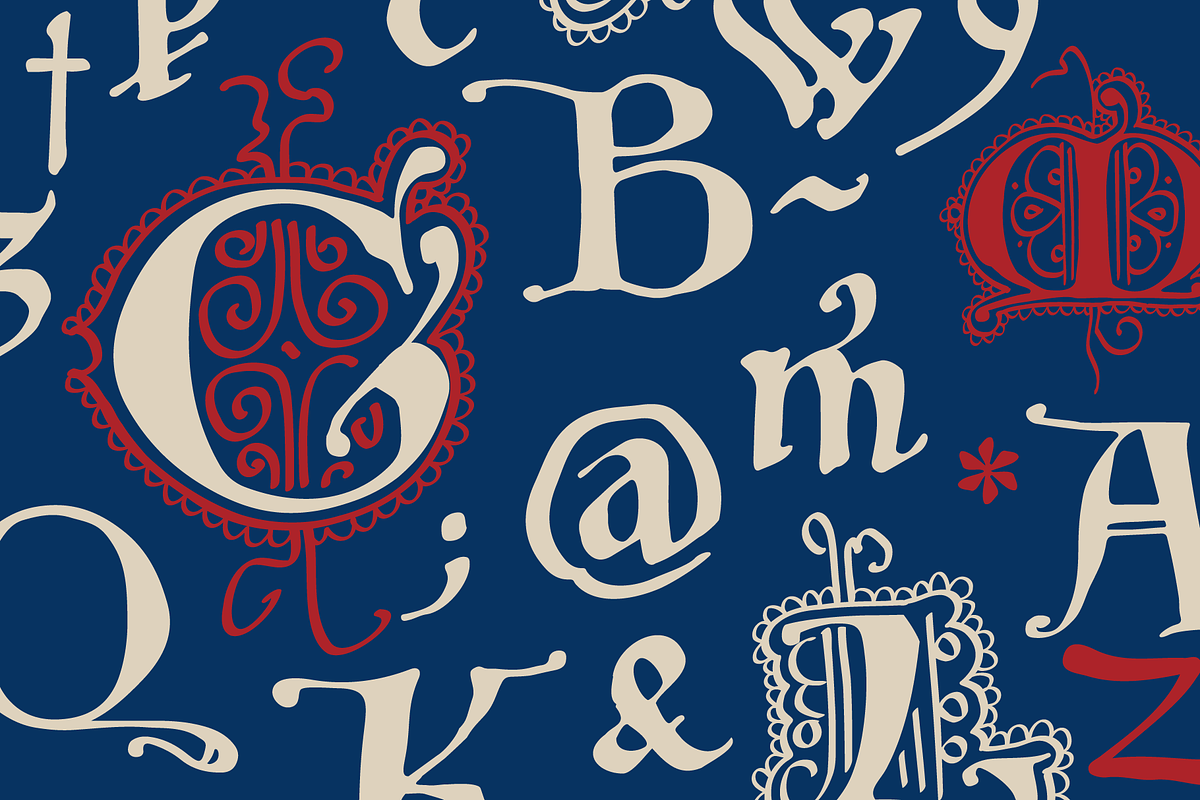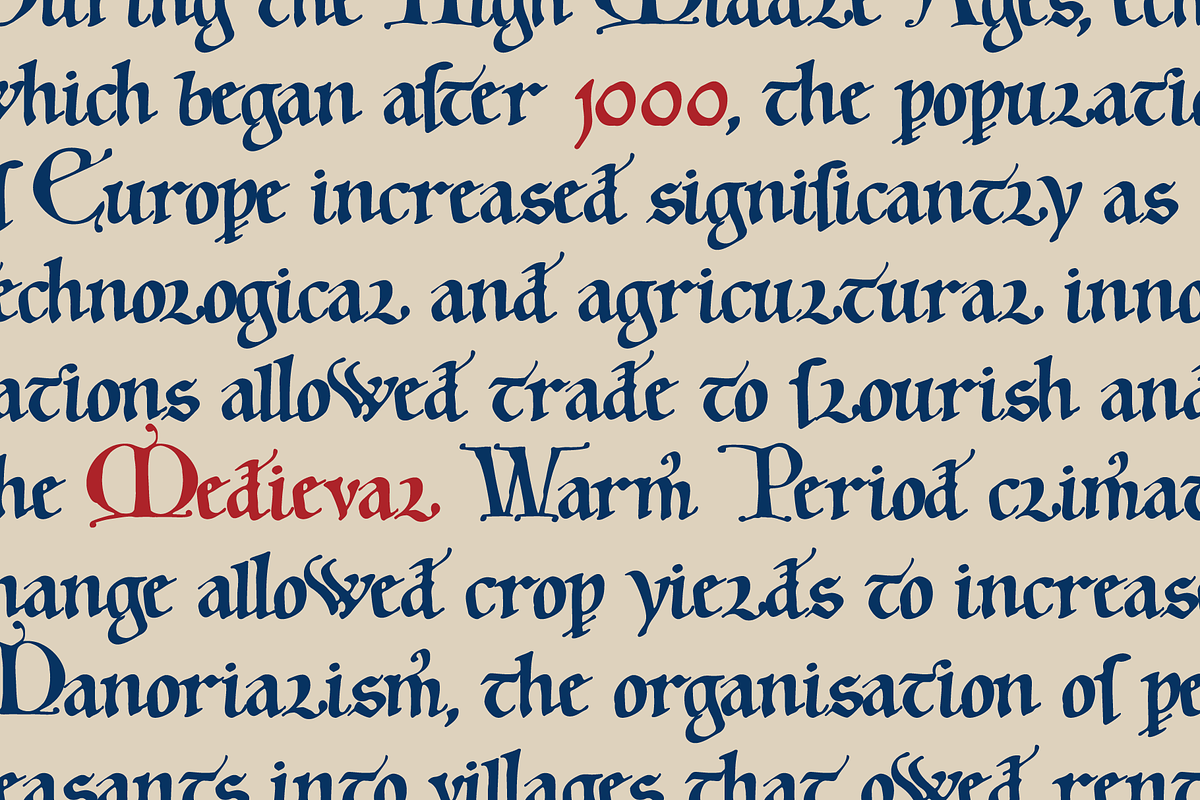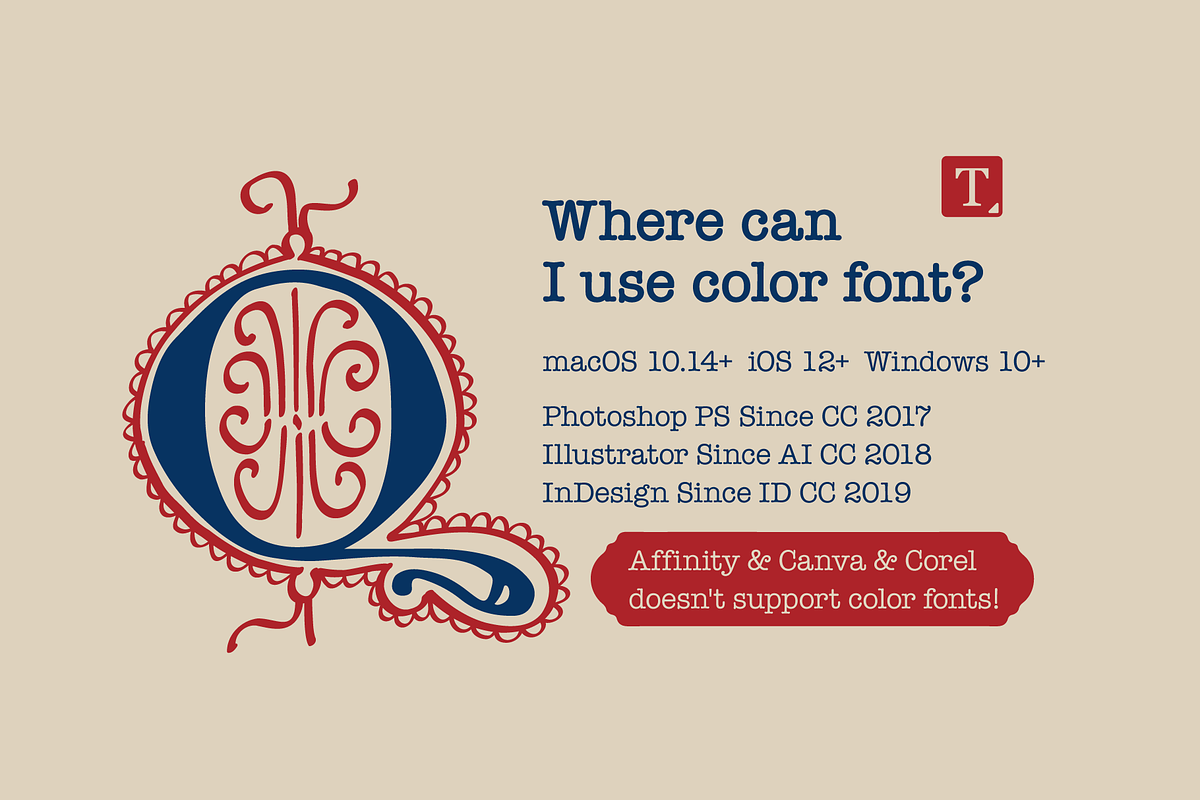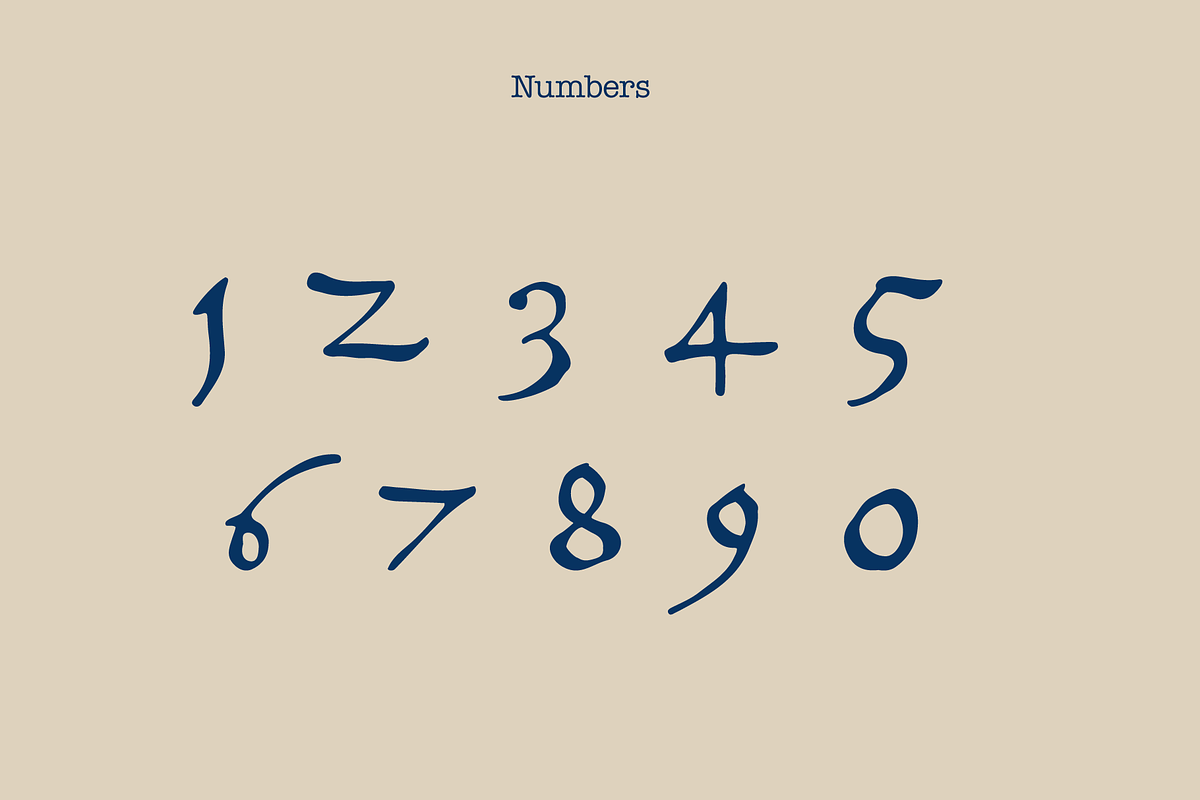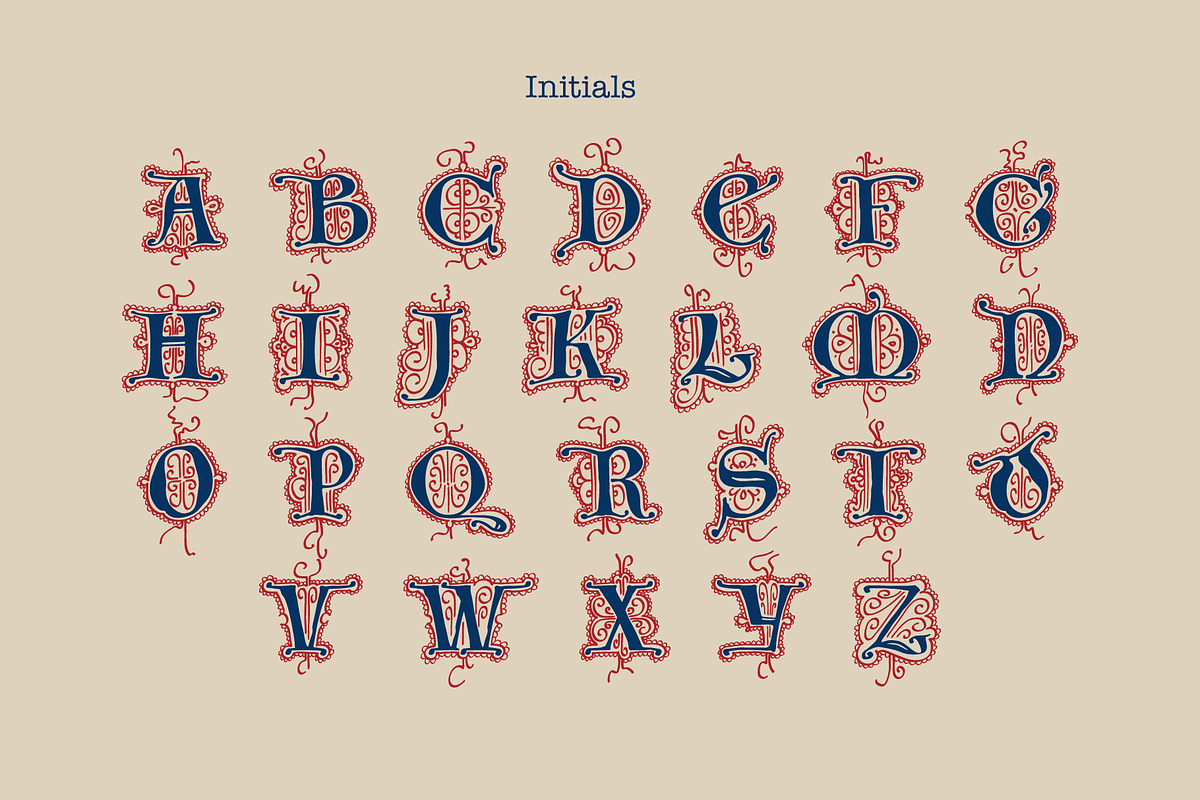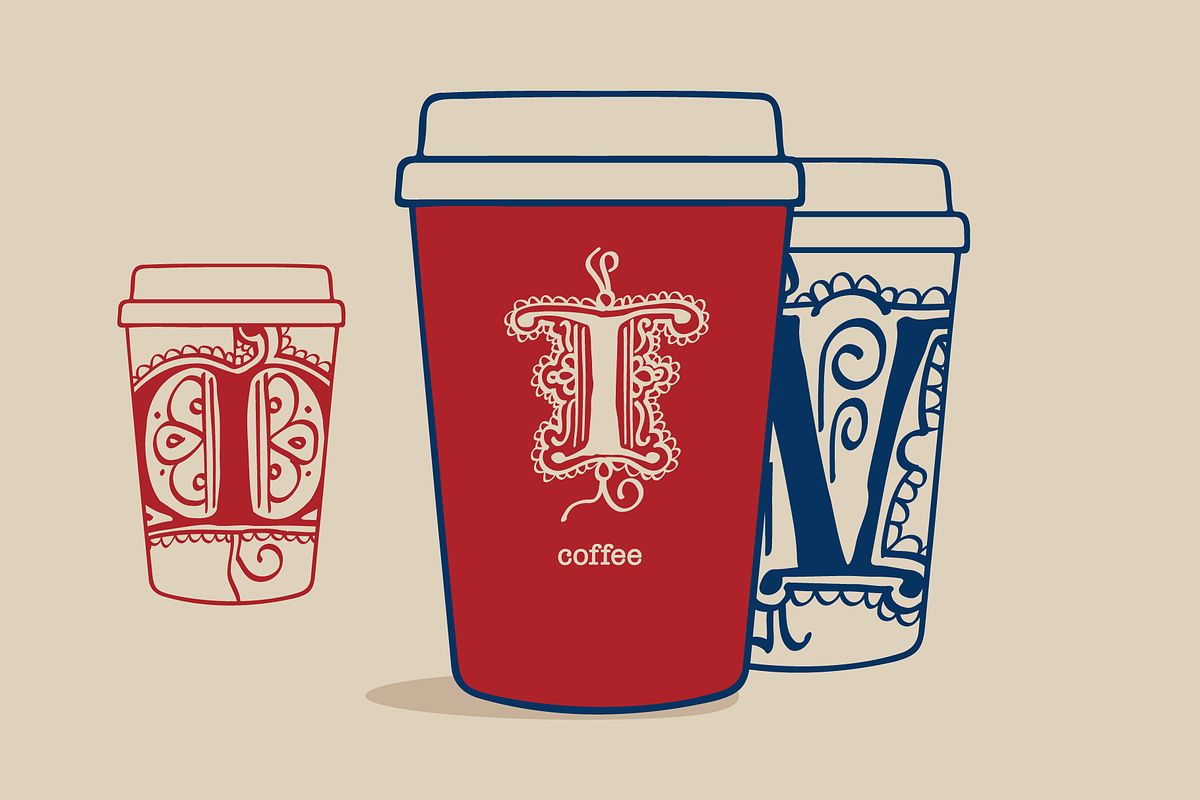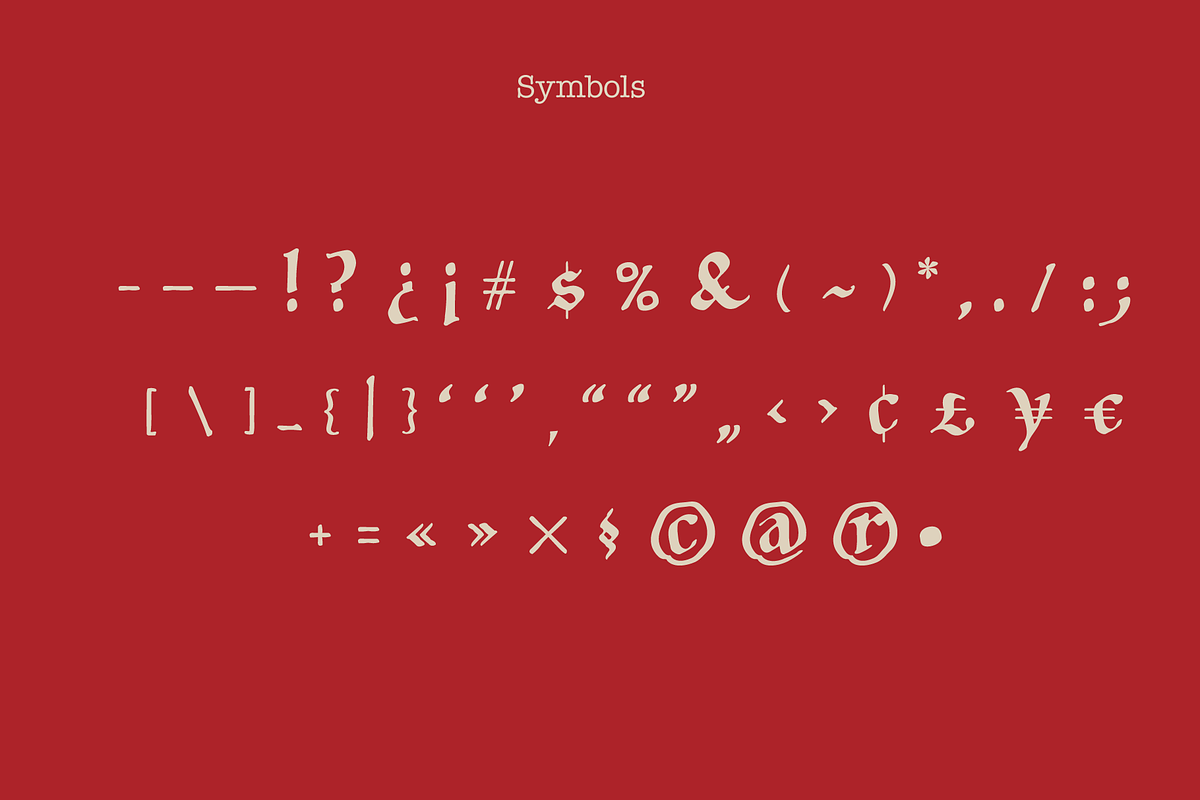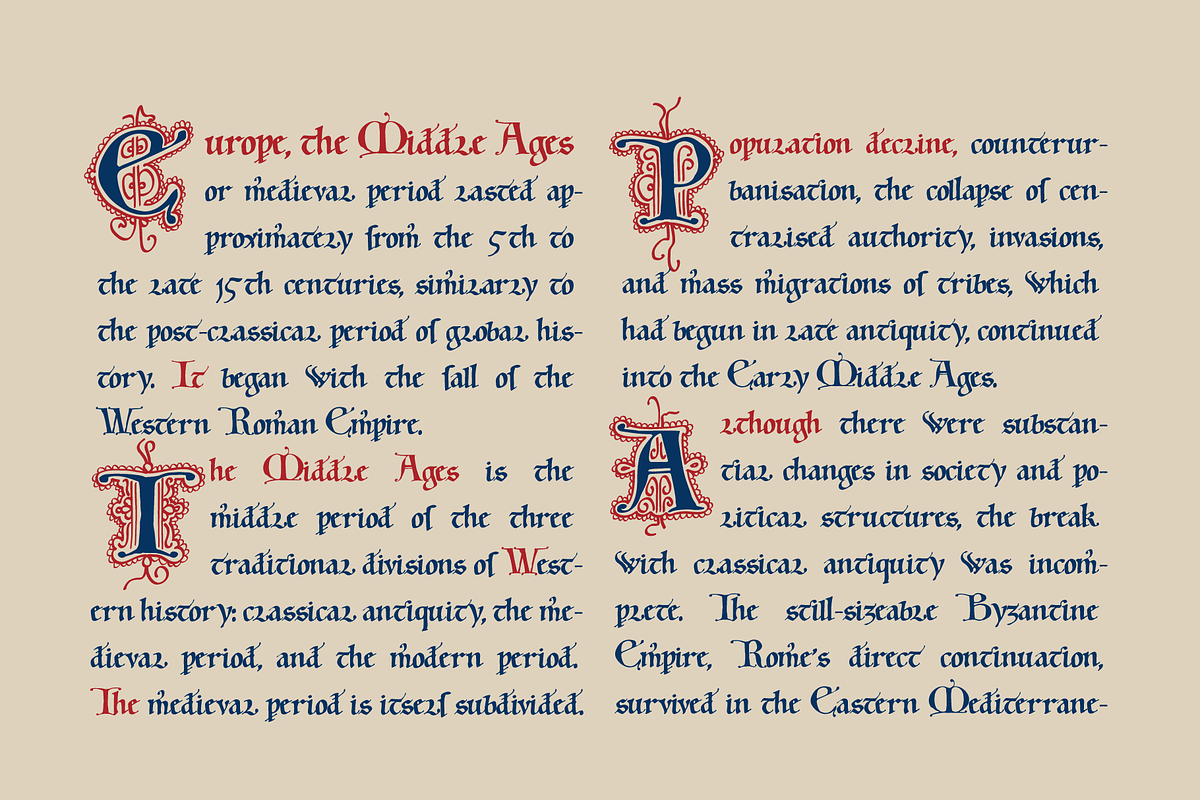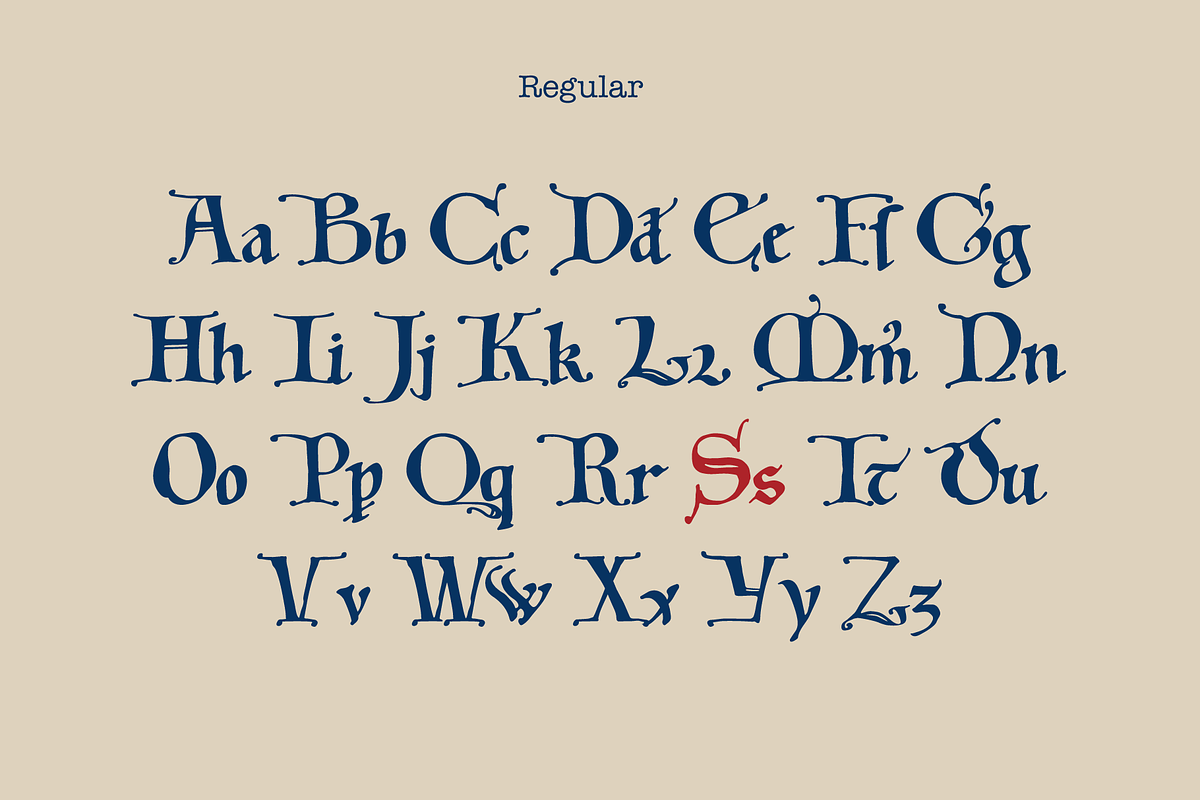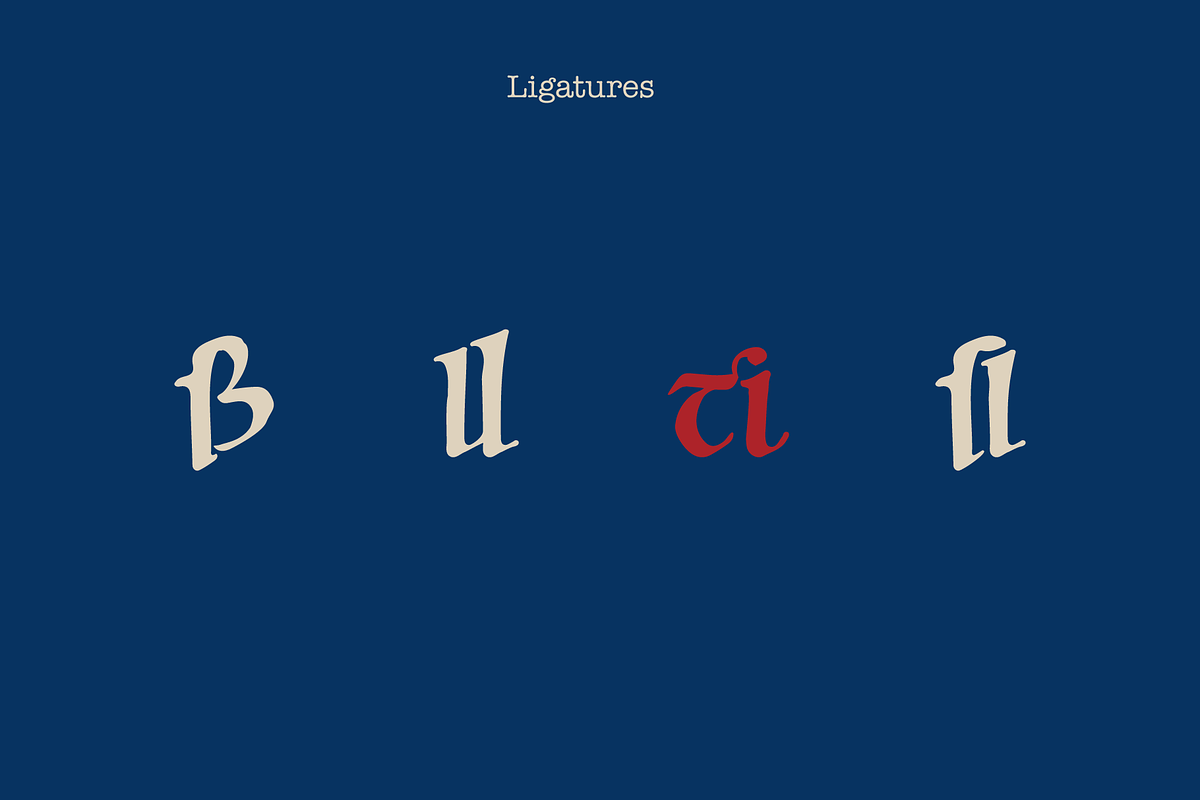
Mainz manuscript 2 fonts set
I'm happy to present you my new Middle Ages blackletter font family based on Historia de sancto Willigiso.
This manuscript, created in the mid-12th century. It contains the text of a service to Willigis, Archbishop of Mainz. The manuscript is written in Carolingian minuscule, a script that uses only lowercase letters. Thant why I named my fonts Mainz. I paid special attention to the artistic design of the Medieval red and blue colours initials.